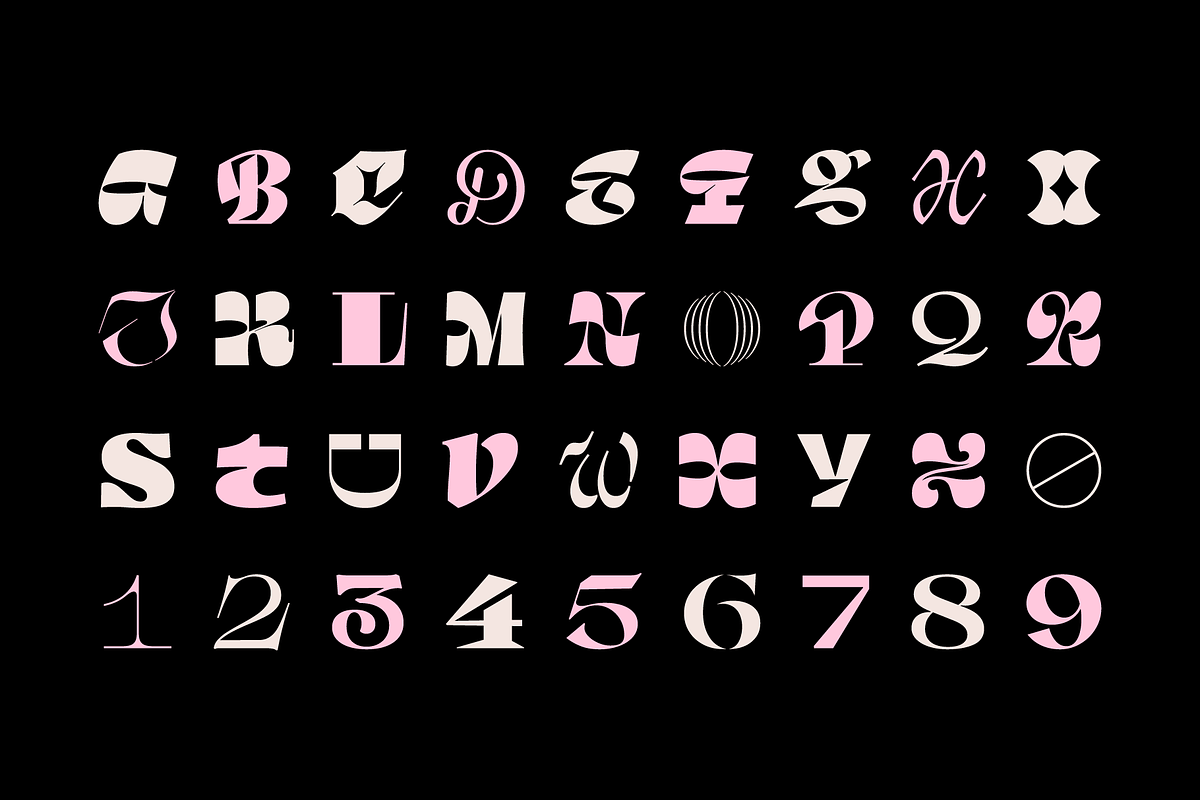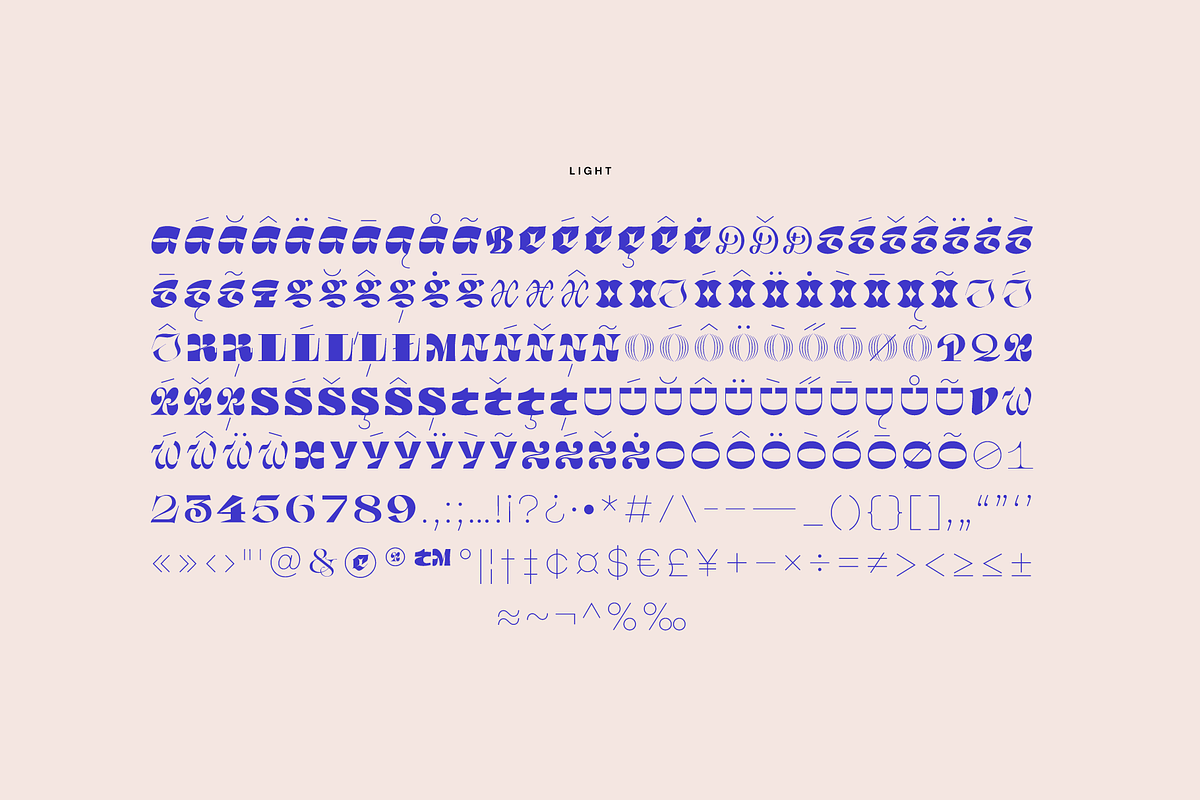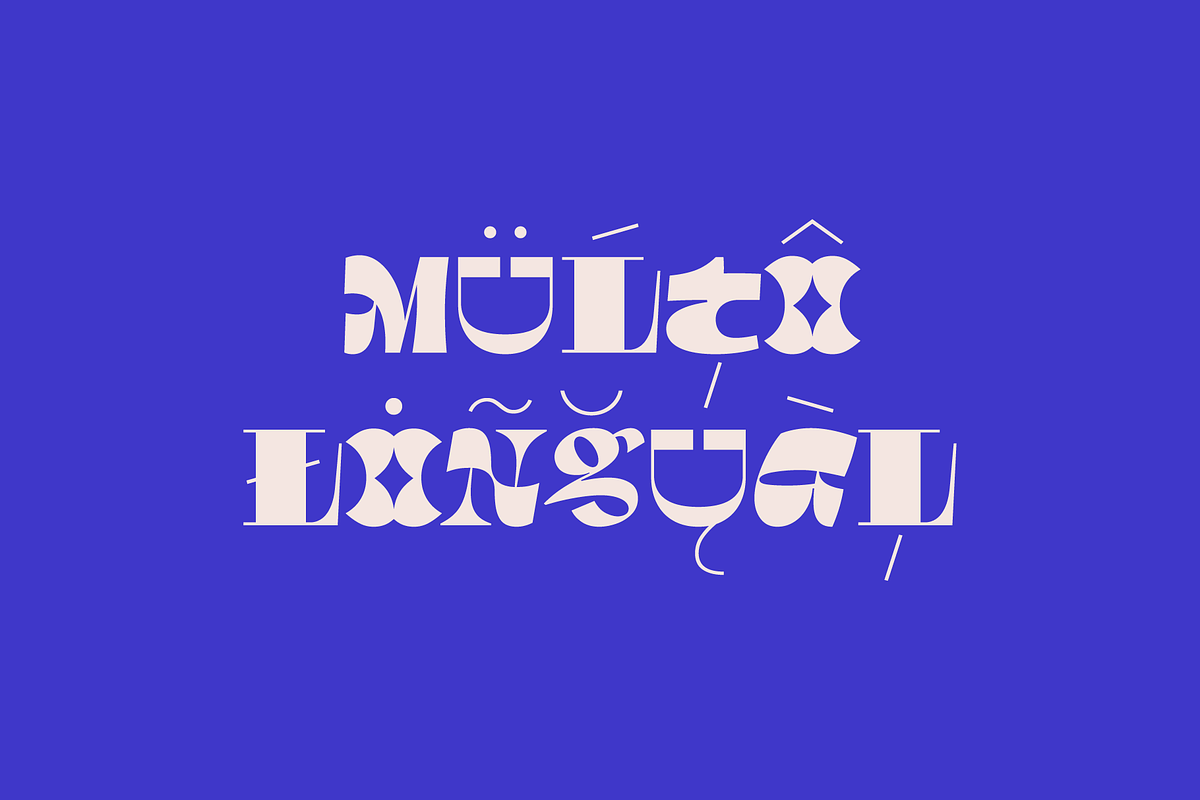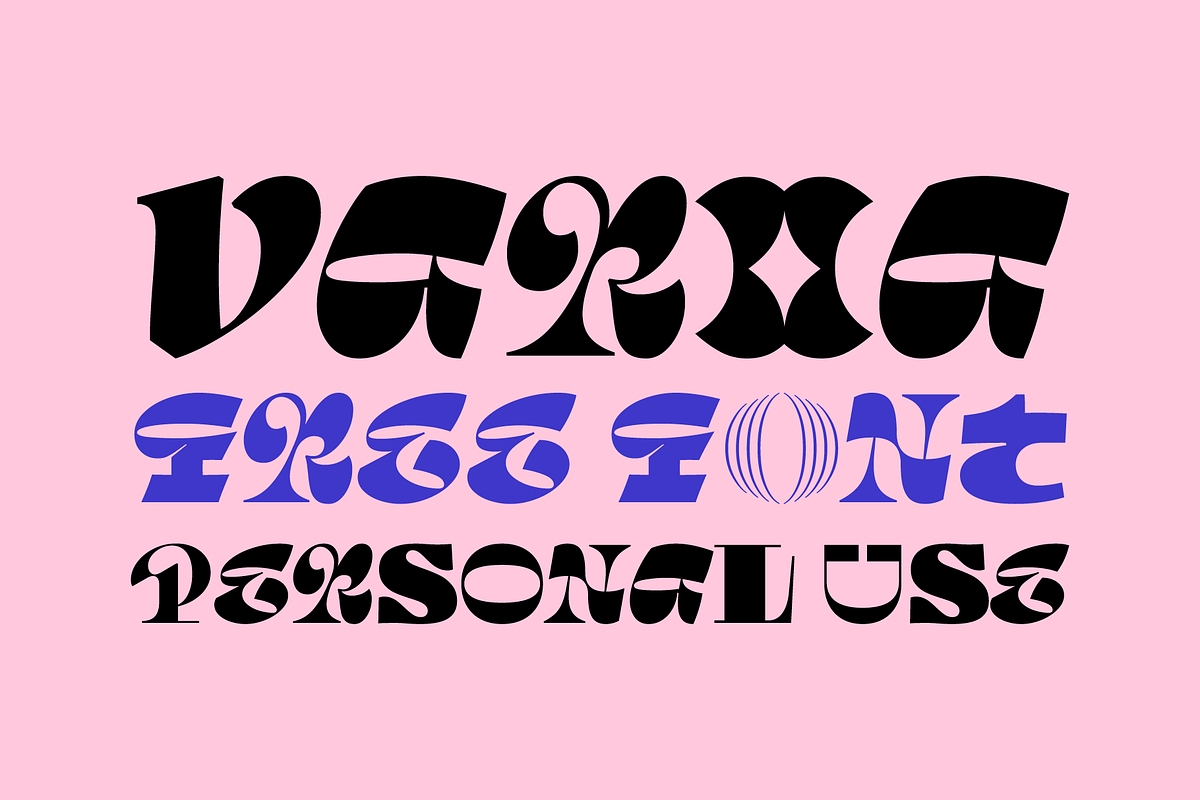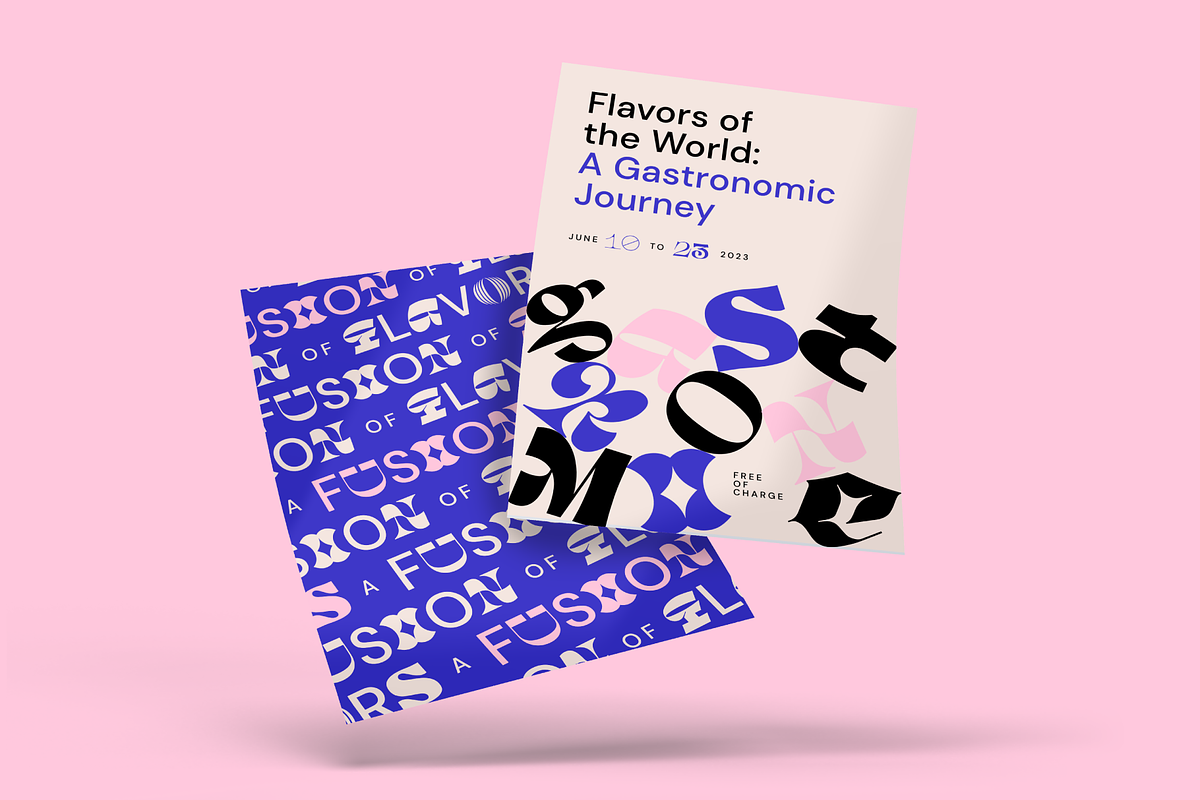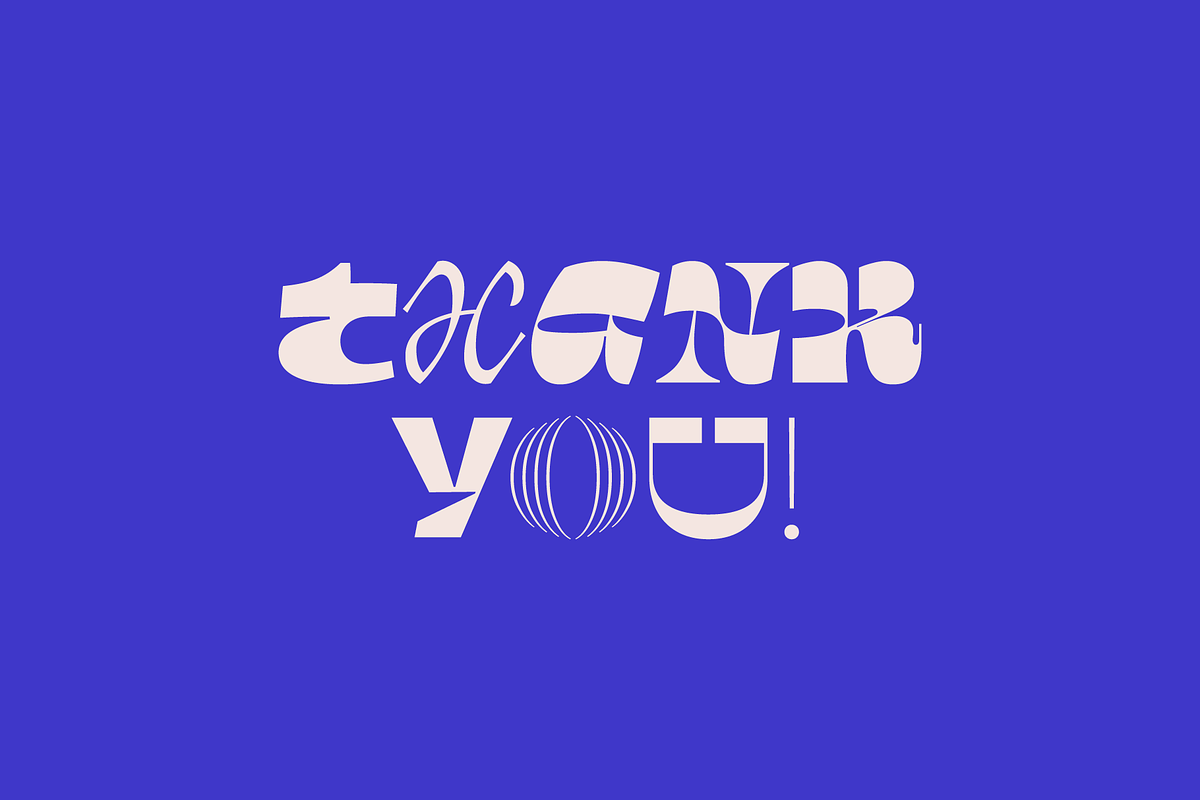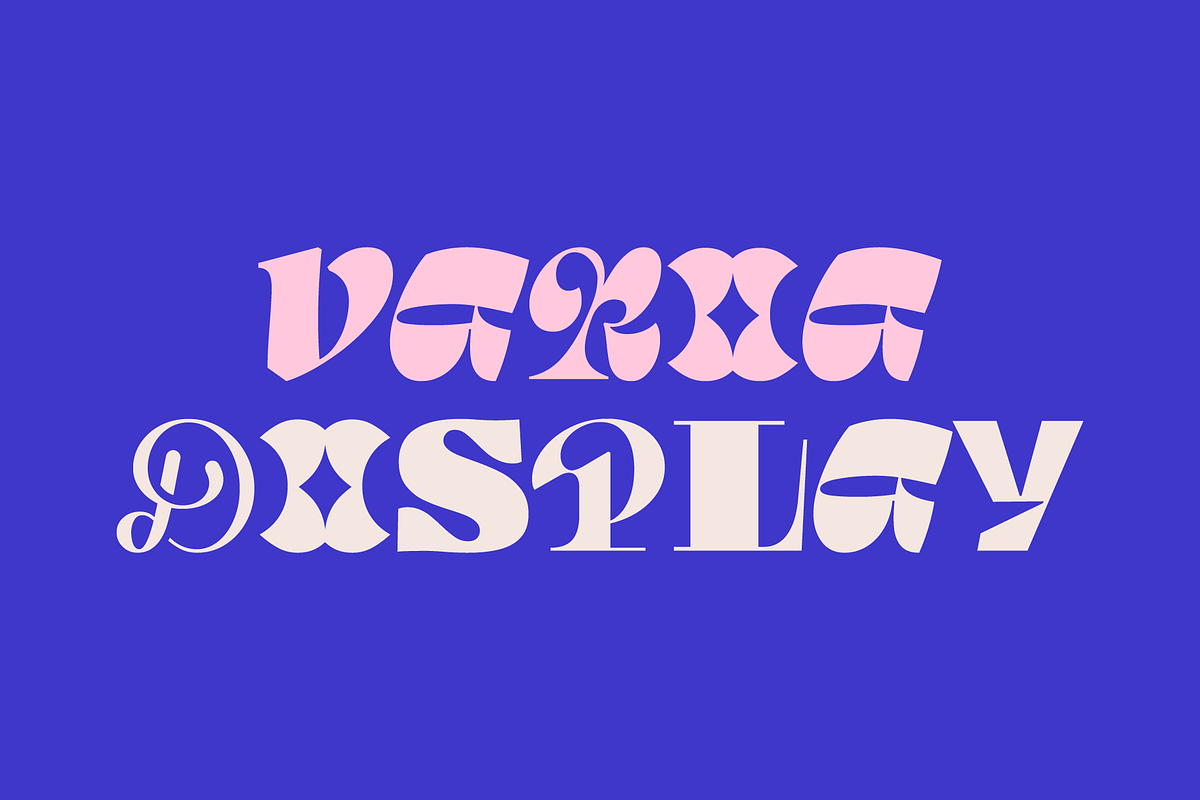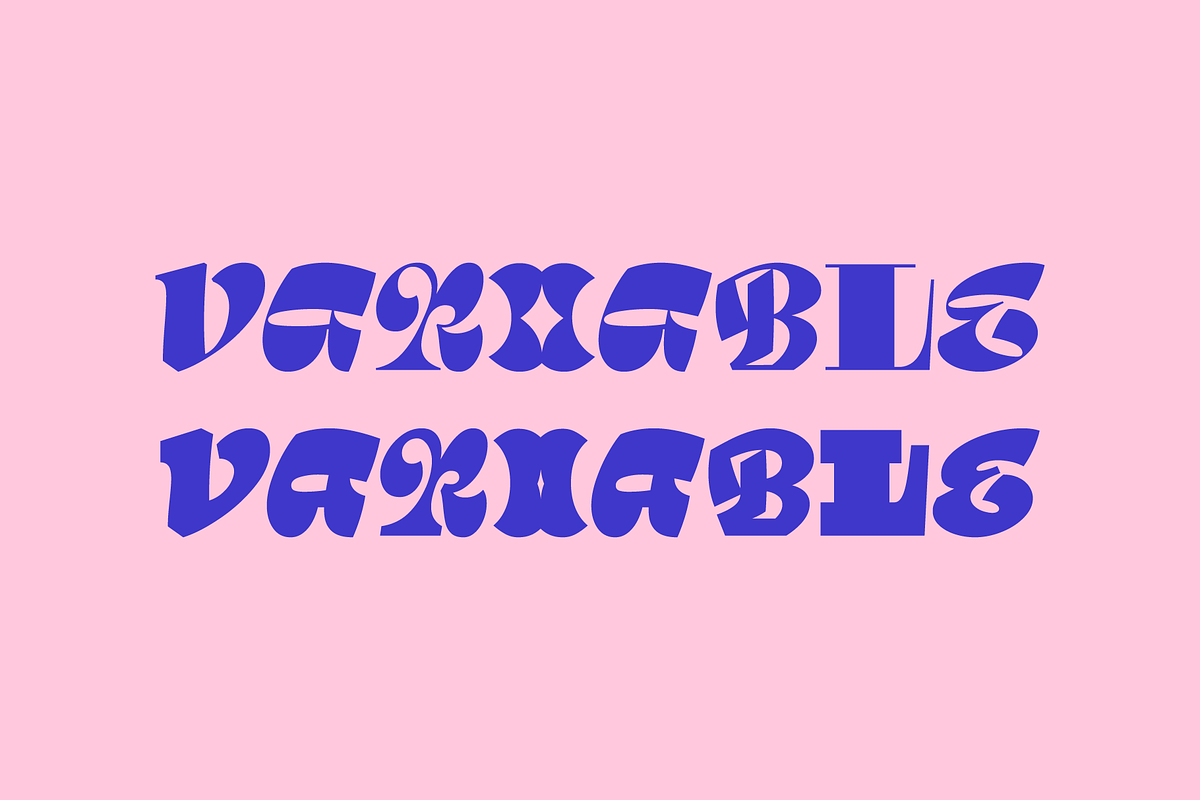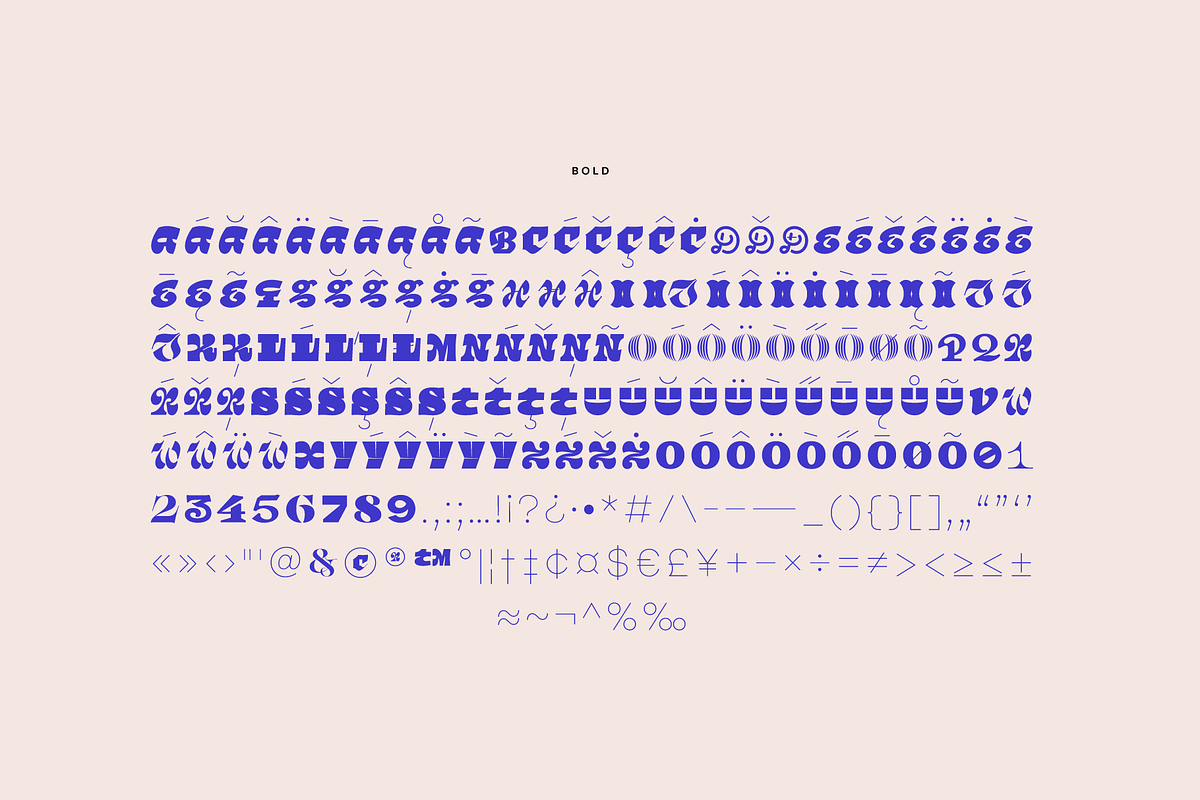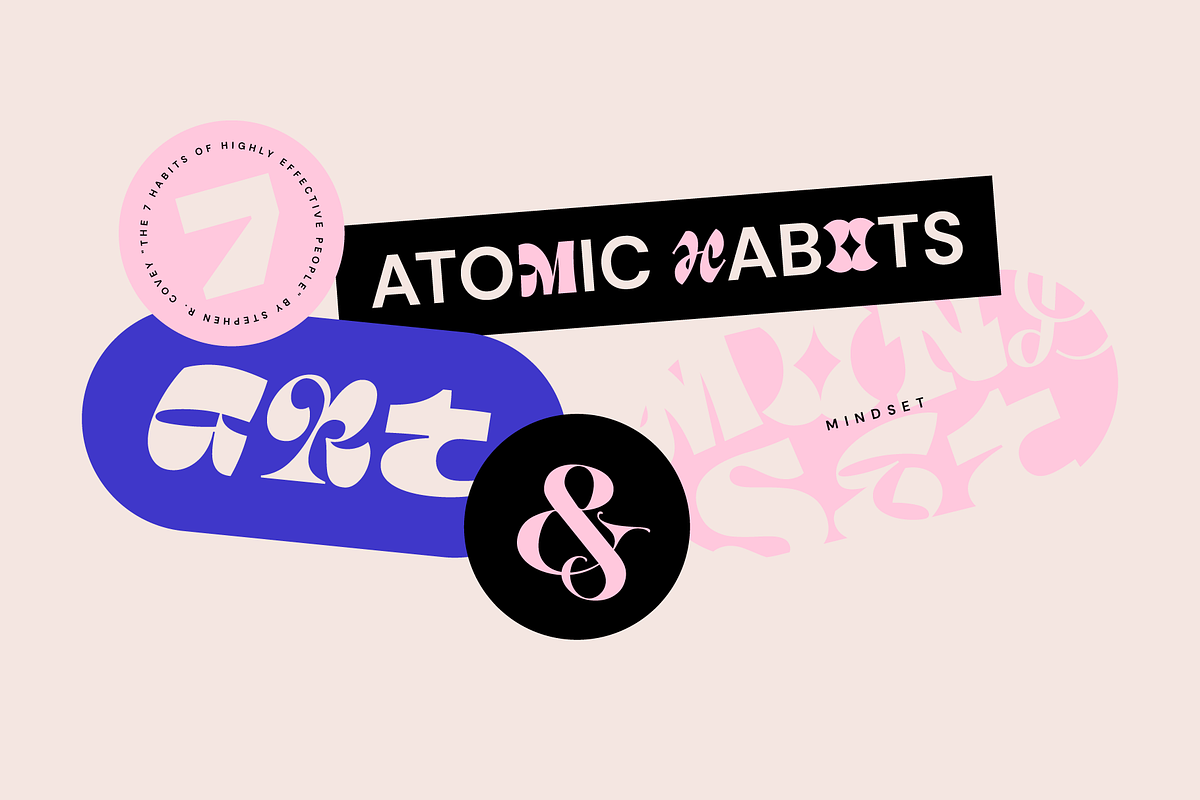
Varia Display - 36 Days of Type 2023
Varia Display Font - 36 Days of Type 2023
Introducing Varia Display, a font that emerged from the renowned challenge of 36 Days of Type. In the 2023's edition, I embarked on a journey to explore a wide variety of styles, leading to infinite possibilities for crafting unique letterforms. The result is a meticulously crafted variable font with a single weight axis, designed to push the boundaries of typographic aesthetics across all characters. With each letter and number embodying a distinct and innovative approach, this font offers a captivating typographic experience.
With its distinctive and varied letterforms, this font is ideally suited for eye-catching main headlines and complementary typography. Whether you seek diversity or a touch of uniqueness, this font is sure to meet your creative needs. Embrace the world of possibilities it presents and elevate your designs to new heights.
Key features:
- Meticulously designed
- Variable Font
- Single Weight Axis
- 374 glyphs